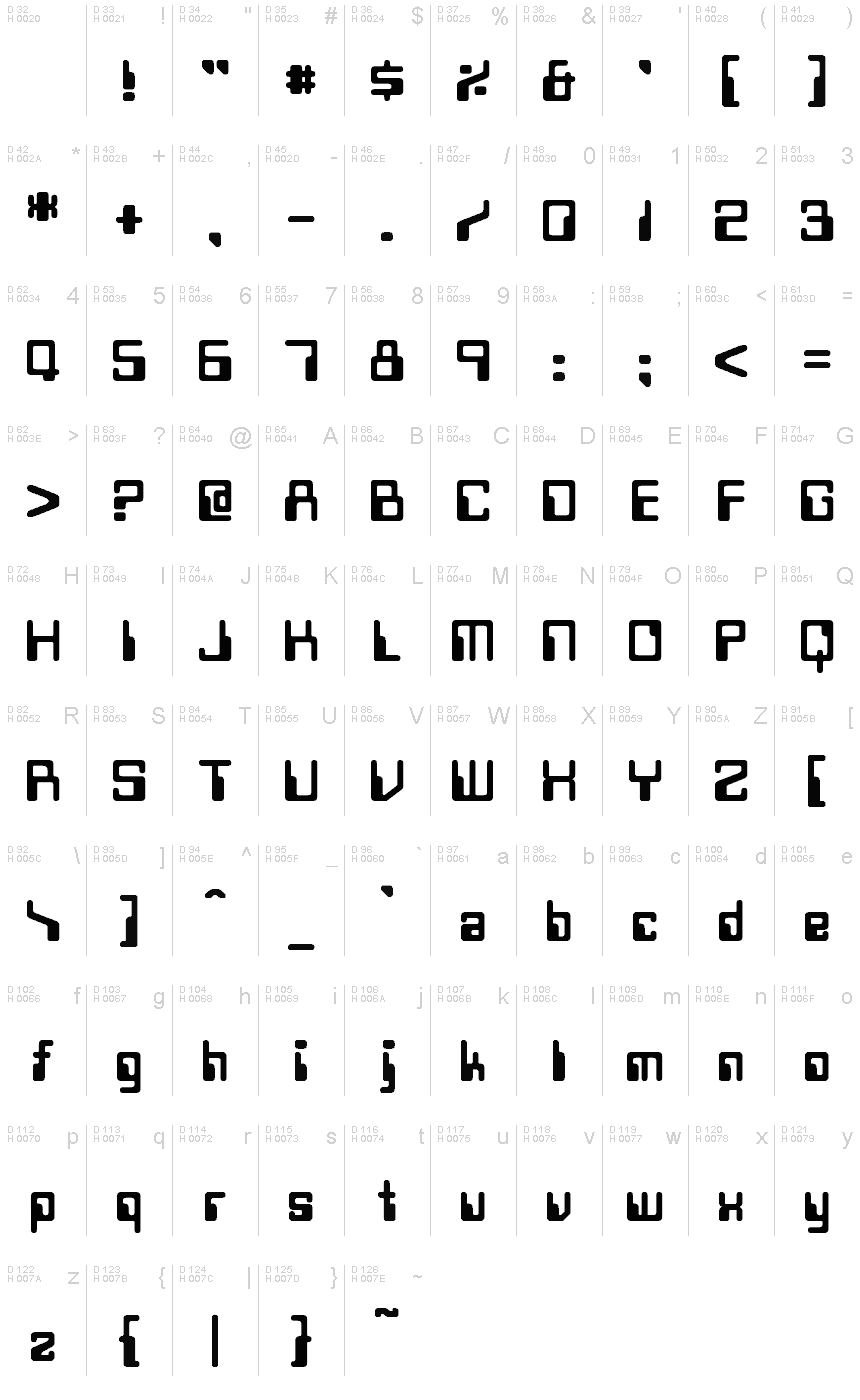
Twobit by Neale Davidson is a free retro digital display font with broad, rounded letterforms and an unmistakable arcade-machine profile. Its thick strokes bend into tight corners, with squared openings and curious notches that make the alphabet look engineered rather than geometric. The silhouette is dense and playful.
Circuit diagrams, console graphics, and chunky interface icons share its mix of soft curves and mechanical joins, making it a natural fit for game packaging, event posters, and electronic music merchandise. In publishing, it can turn section openers or cover lines into part of a retro-computing theme, especially for magazines covering games, technology, or digital culture.
The typeface is based on retro-futuristic designs used in computer and technology advertising in the 1960s and early 1970s. It includes the full alphabet, punctuation, and the euro symbol. Styles include regular, bold, italic, and bold italic.